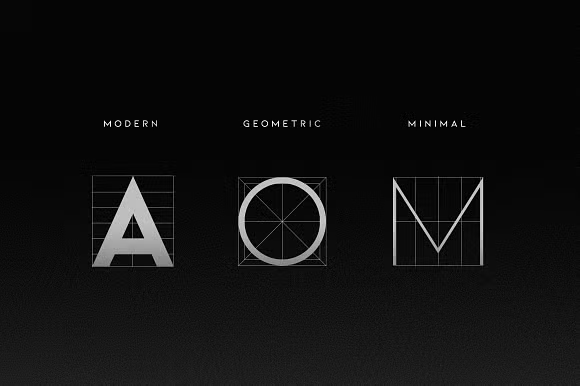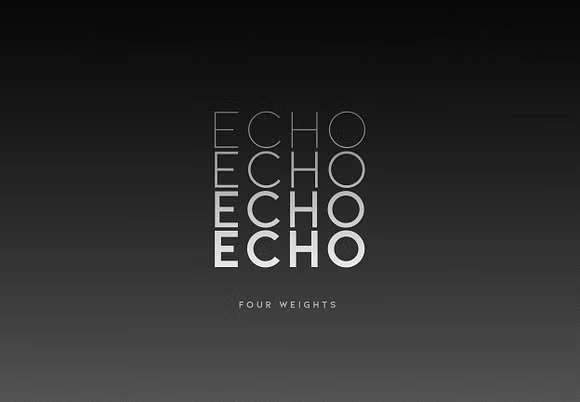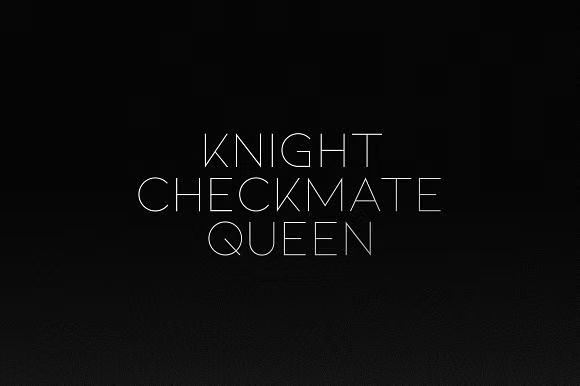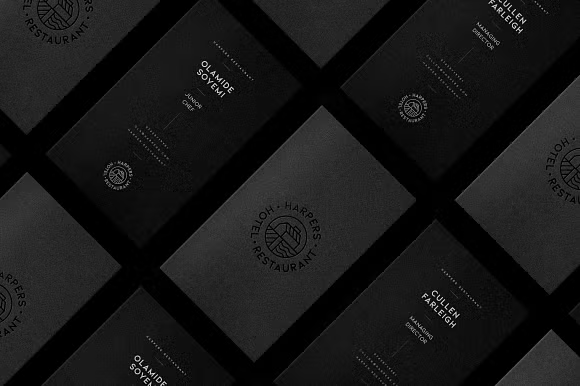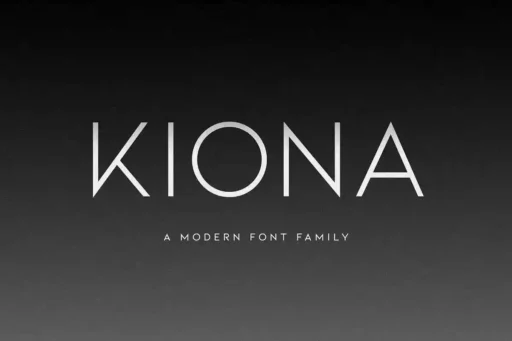
Kiona Font
Kiona is a multi-face and very attractive sans serif font designed by Ellen Luff. This is due to the geometric shapes as well as the calculated look as hallmarked by this style of furniture. Owing to the big number of weights and the really wide language support Kiona is a perfect font to use in branding, logo creation, headlines and posters design.
Kiona behaves in a simple and elegant way, looking more scrupulous and striving for minimalism and rationality, making it eye-catching. Its contemporary approach spans four representative weights – Light, Regular, Semibold and Bold – with different character traits to support a variety of purposes. Both the typeface’s slender appearance and the shapes of its strokes are perfectly balanced for reading, allowing it to be employed both for text and headlines, even if it is displayed in a small size. Support for a myriad of languages widens the products’ reach to as many users as possible, while certain OpenType features, such as ligatures & alternatives, provide distinction and a personal touch to the logos.
The broadness of Kiona’s potential application translates to more opportunities. In branding and logos, it helps creating memorable visual identities as it has clean and modern look. For headlines and posters, its bold weights hit hard, it commands attention and puts across a message that is heard. Whereas, in web design, Kiona’s outstanding legibility helps people read comfortably once they visit the site. Moreover, it is suitable for print work as it enriches the magazines, brochures, and other printed forms of media.
Kiona is another beautiful and unpretentious font that is suitable for various types of publications and is a successful representative of sans-serif genre. Despite being relatively new, its clear typeface, minimalistic design, and support for a vast number of languages are definitely on the plus side. From a branding project to a website or a print design, Kiona will add touch to your work and ensure that the end product stands out.
Where Kiona Font works best
Kiona Font stays legible at small sizes, which makes it a strong choice for navigation, buttons and dashboards in web design and app interfaces.
Clean sans serifs like Kiona Font are the default language of SaaS, fintech and product branding.
What is Kiona Font good for?